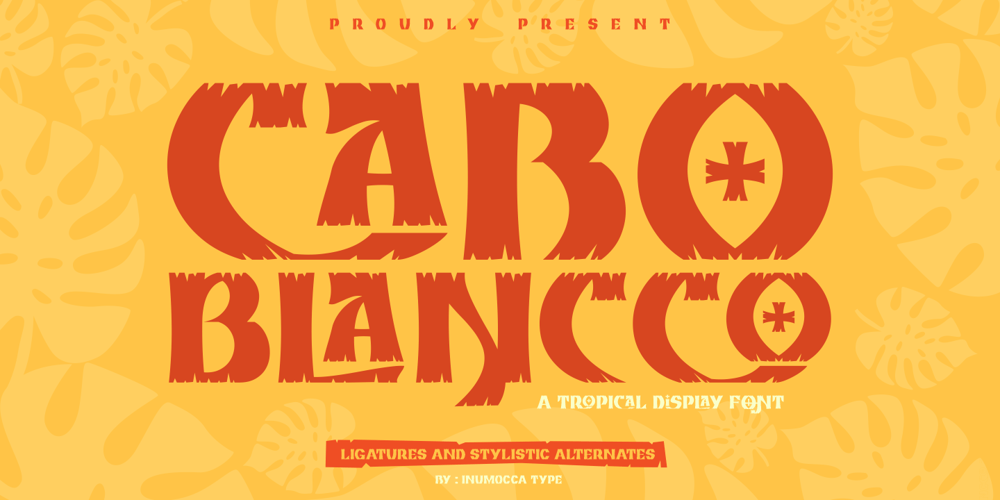
Cabo Blancco Font Family was designed by Inu Mocca and published by Inumocca. Cabo Blancco contains 1 styles and family package options. CABO BLANCCO is A Tropical Display Fontinspired by a traditional carved wooden tiki, Powerfull and has a very distinct and Bold Character,Great for expressing a summer,The Typeface comes with Stylistic Alternates and Ligature CombinationsExellent typeface to use for covering your Project, like Branding, Headline Letter, Flyer, Signage, Quotes, Poster Typography,Bookcover, Magazine cover, Poster, Quotes Lettering, Logos, and more your project design.- Unique glyphs- Multilingual Characters Support- UPPERCASE- Lowercase- Numeric- Symbol- Punctuation Character- Ligature- Stylistic Alternatesinumocca type